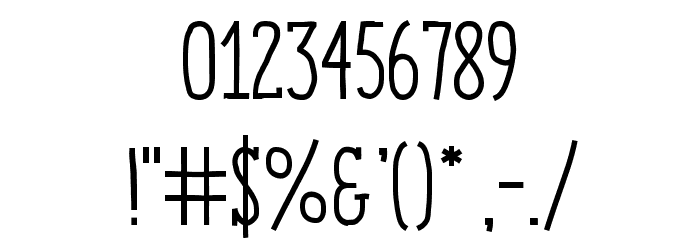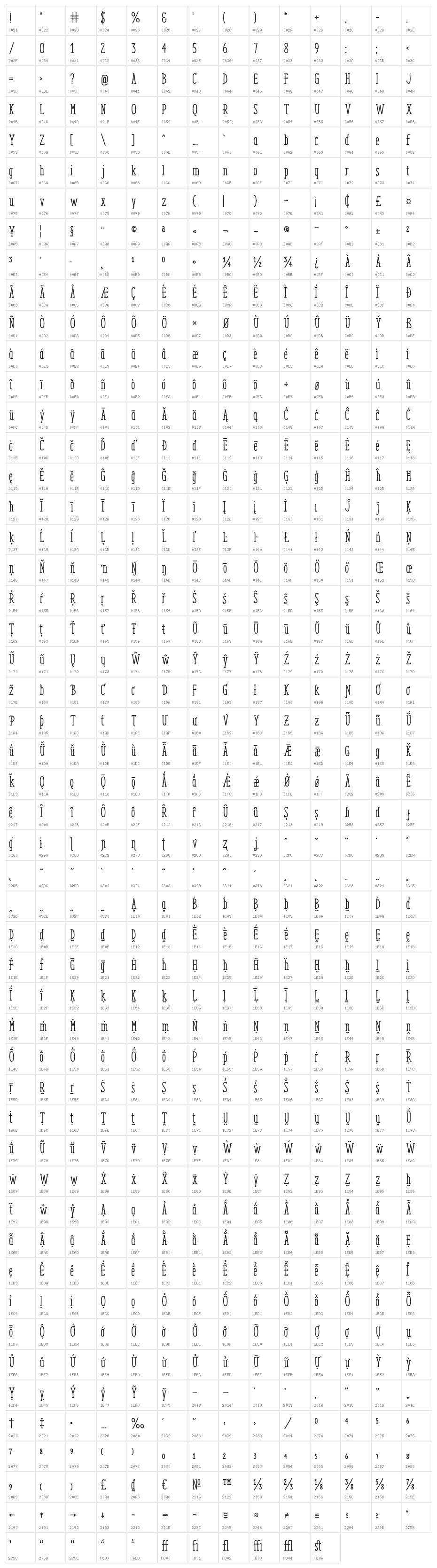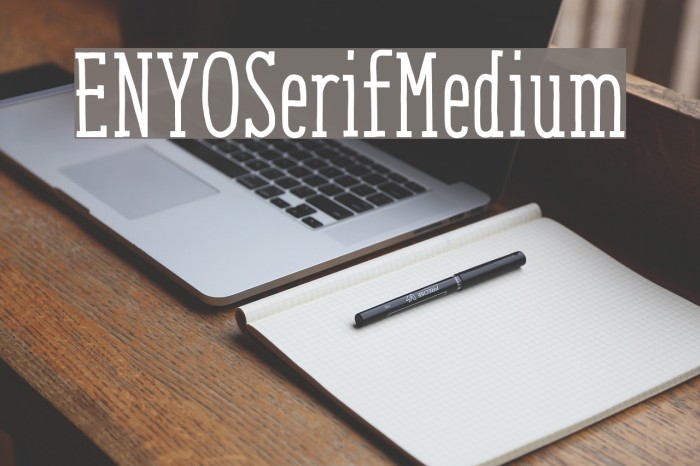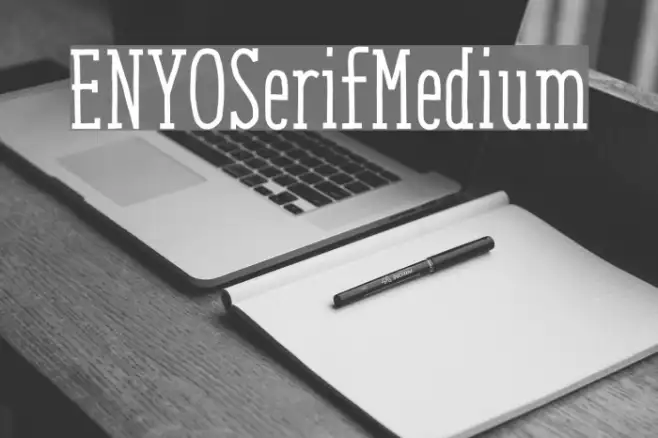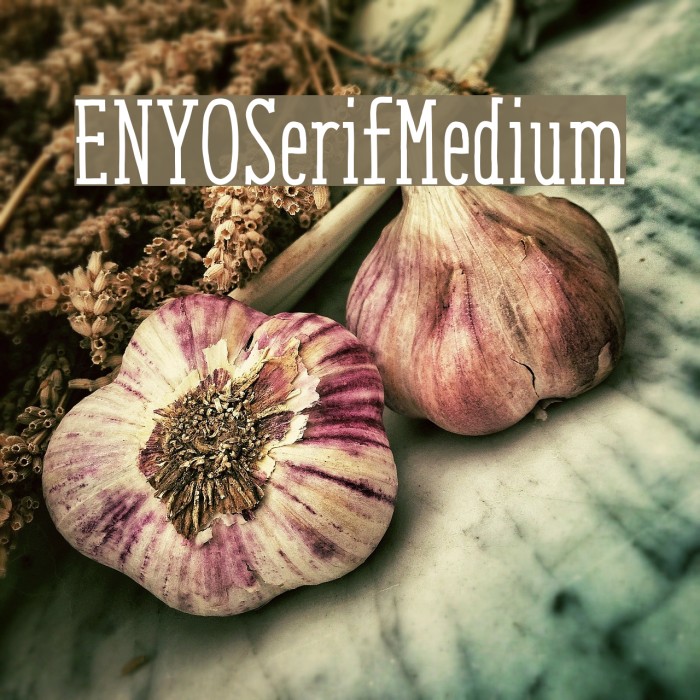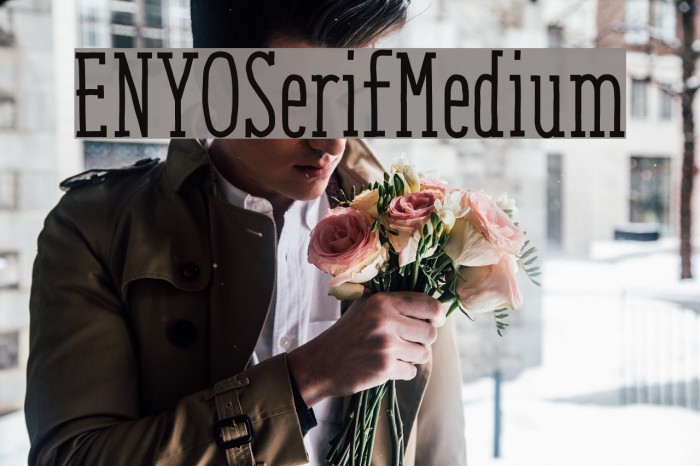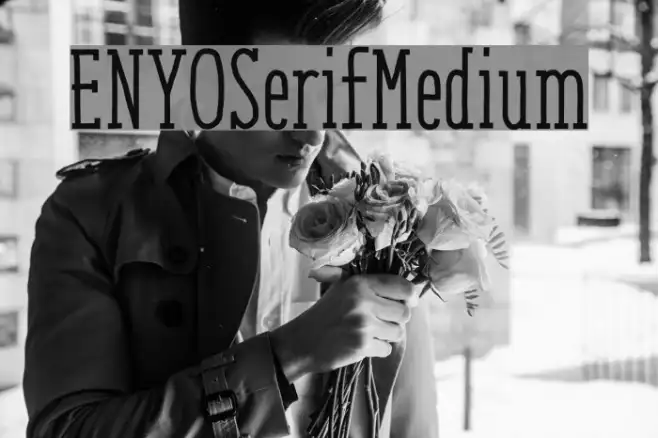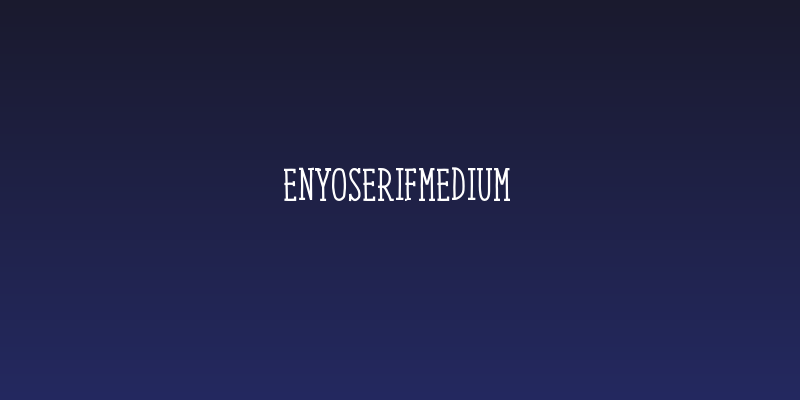
ENYOSerifMedium Font
ENYOSerifMedium Description
This font features a classic serif style with medium weight, characterized by its elegant and slightly elongated letterforms. The serifs are pronounced, providing a traditional and formal appearance. The uppercase letters are tall and commanding, while the lowercase letters maintain a consistent height, ensuring readability. The numerals are clear and distinct, complementing the overall design. The special characters are well-integrated, maintaining the font's cohesive aesthetic. This font is ideal for projects that require a touch of sophistication and timeless appeal.
| Proposed Projects | Ideal for book covers, formal invitations, branding, and editorial design. |